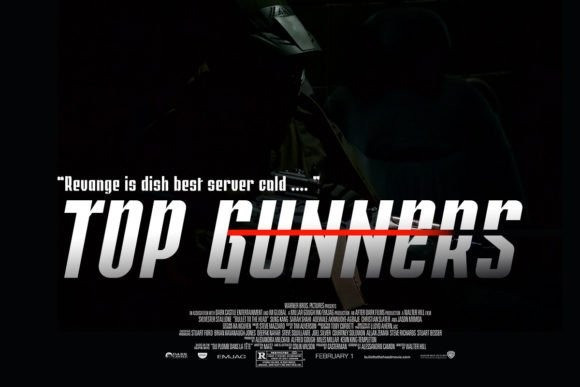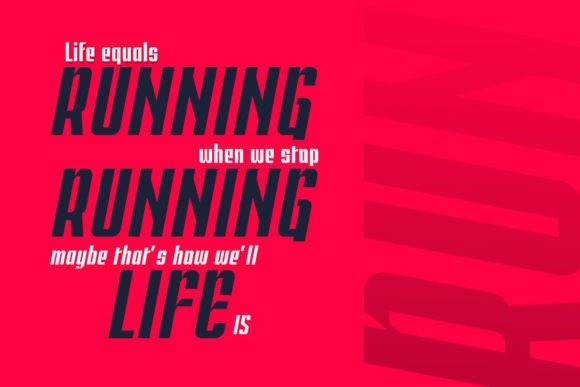
Milan In Paris Font
Milan in Paris Font a brand new display font. Its quirky letterforms make this font perfect for branding, headlines, logotype, stickers, editorial design, and more.